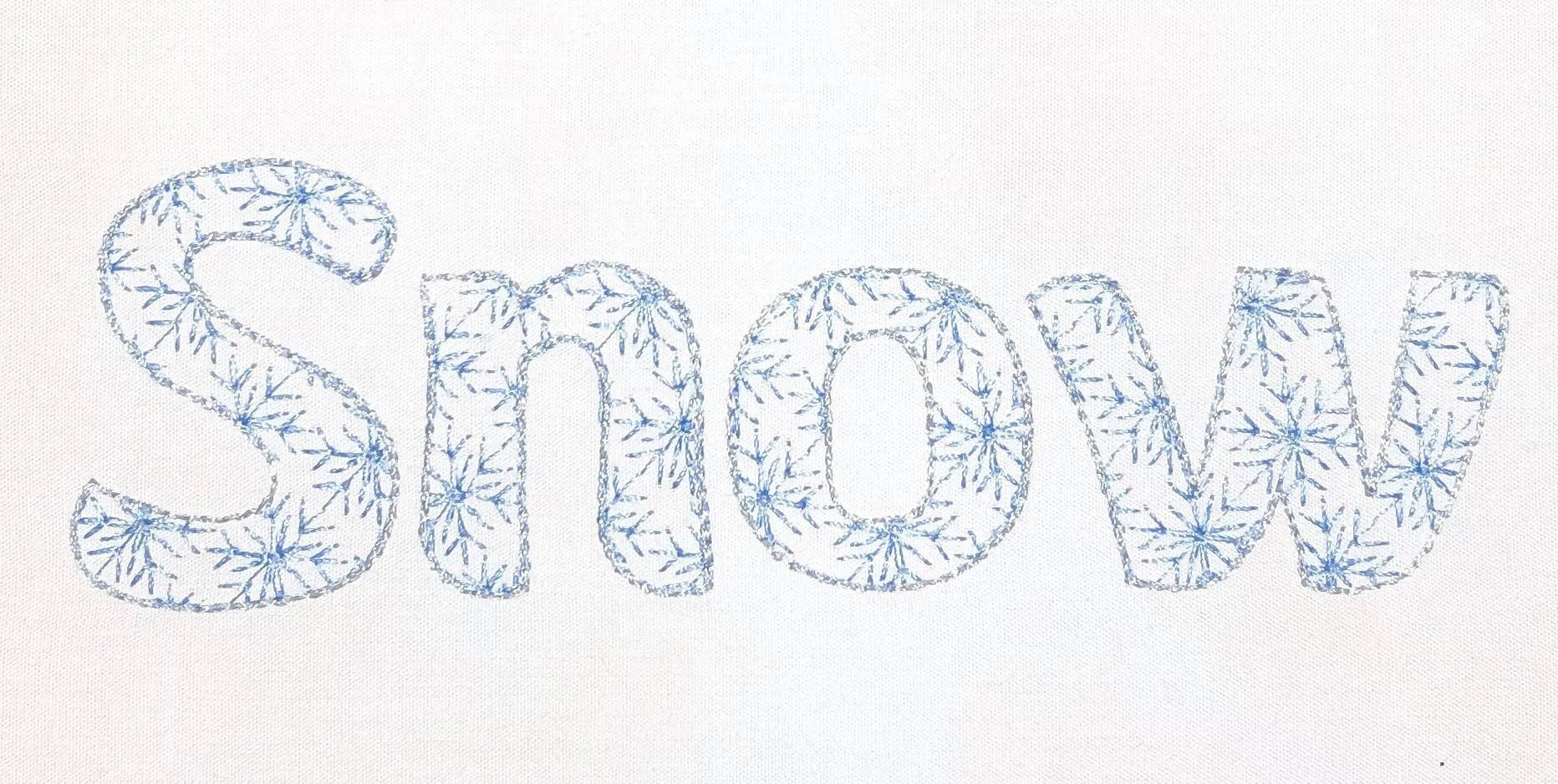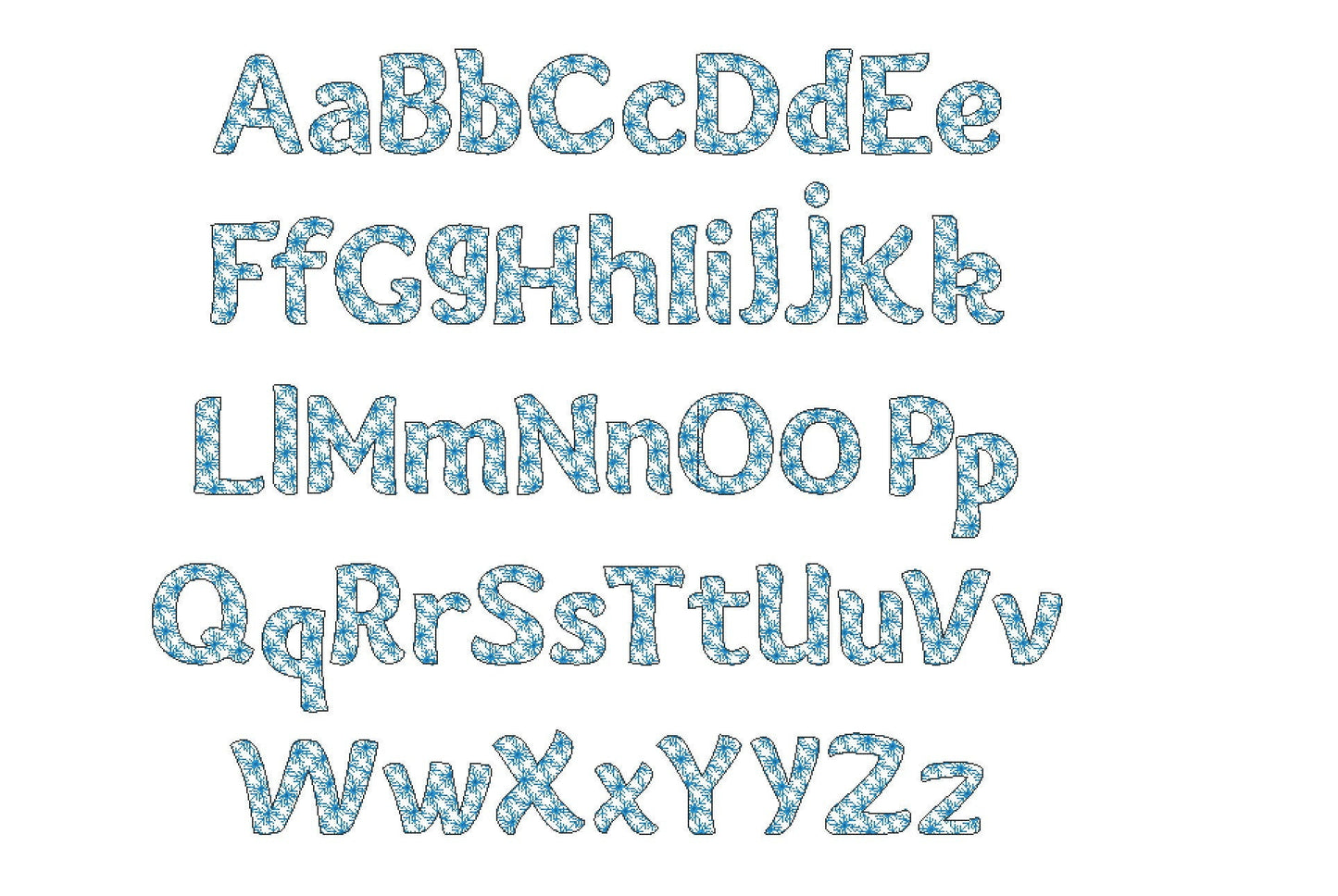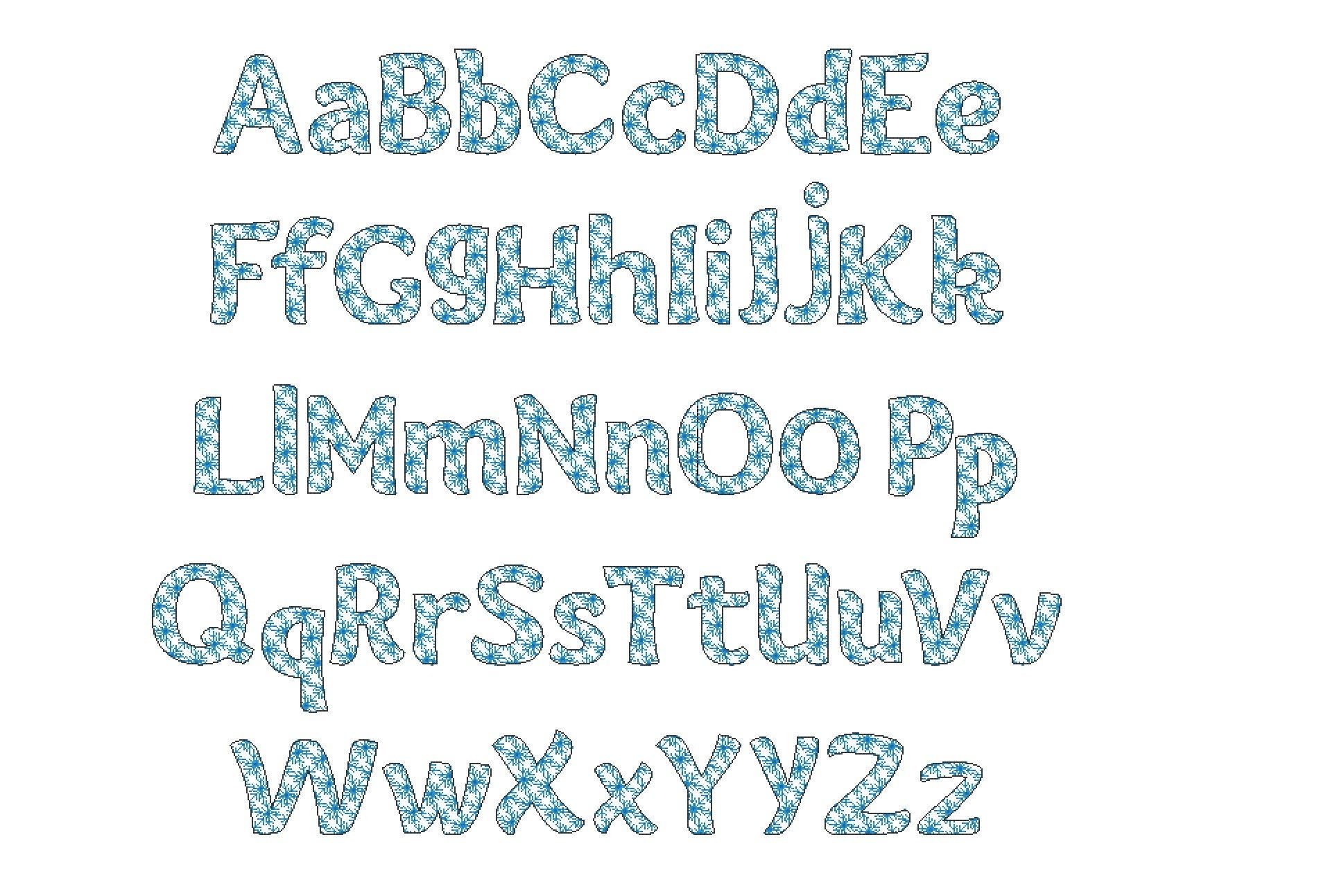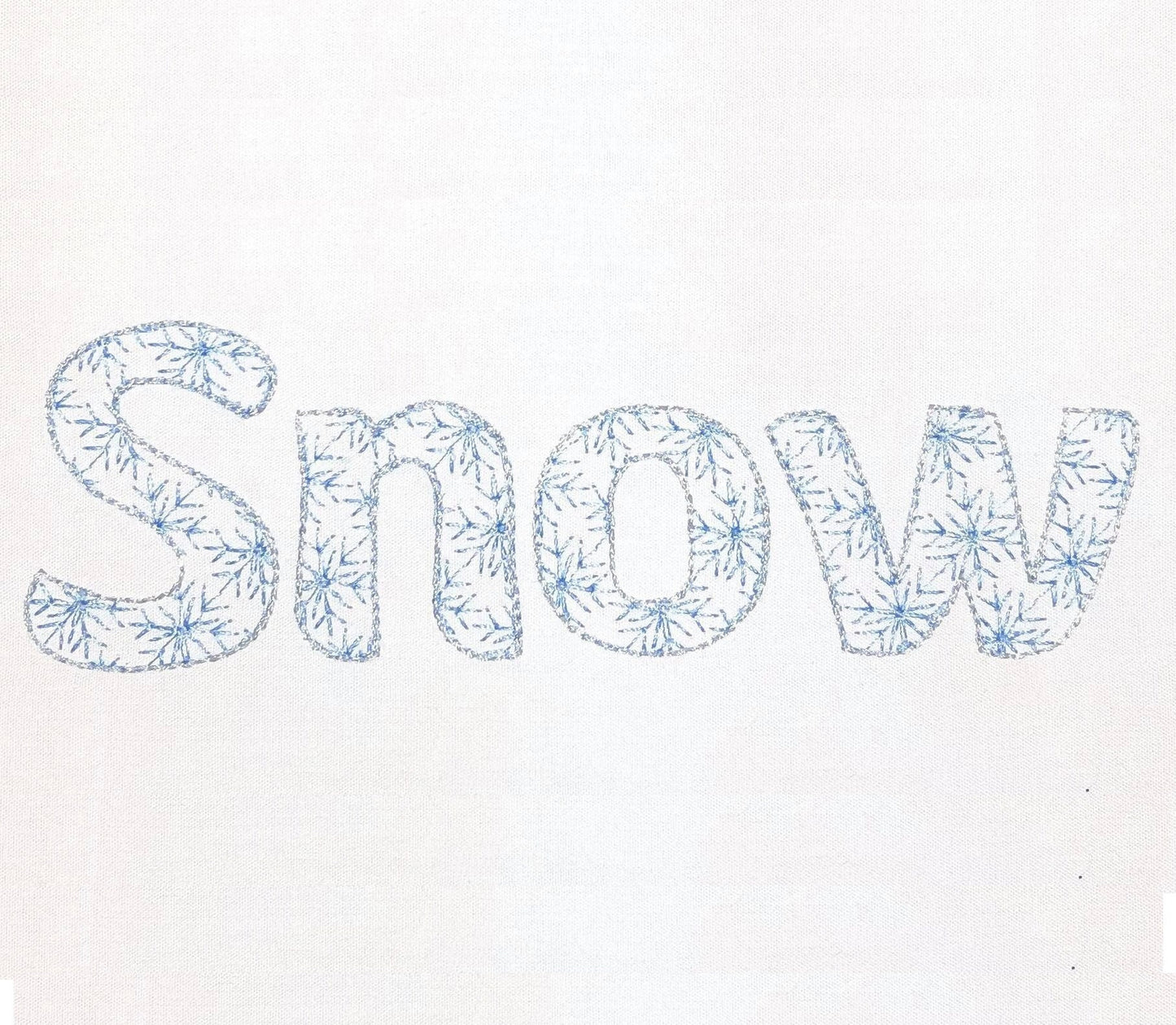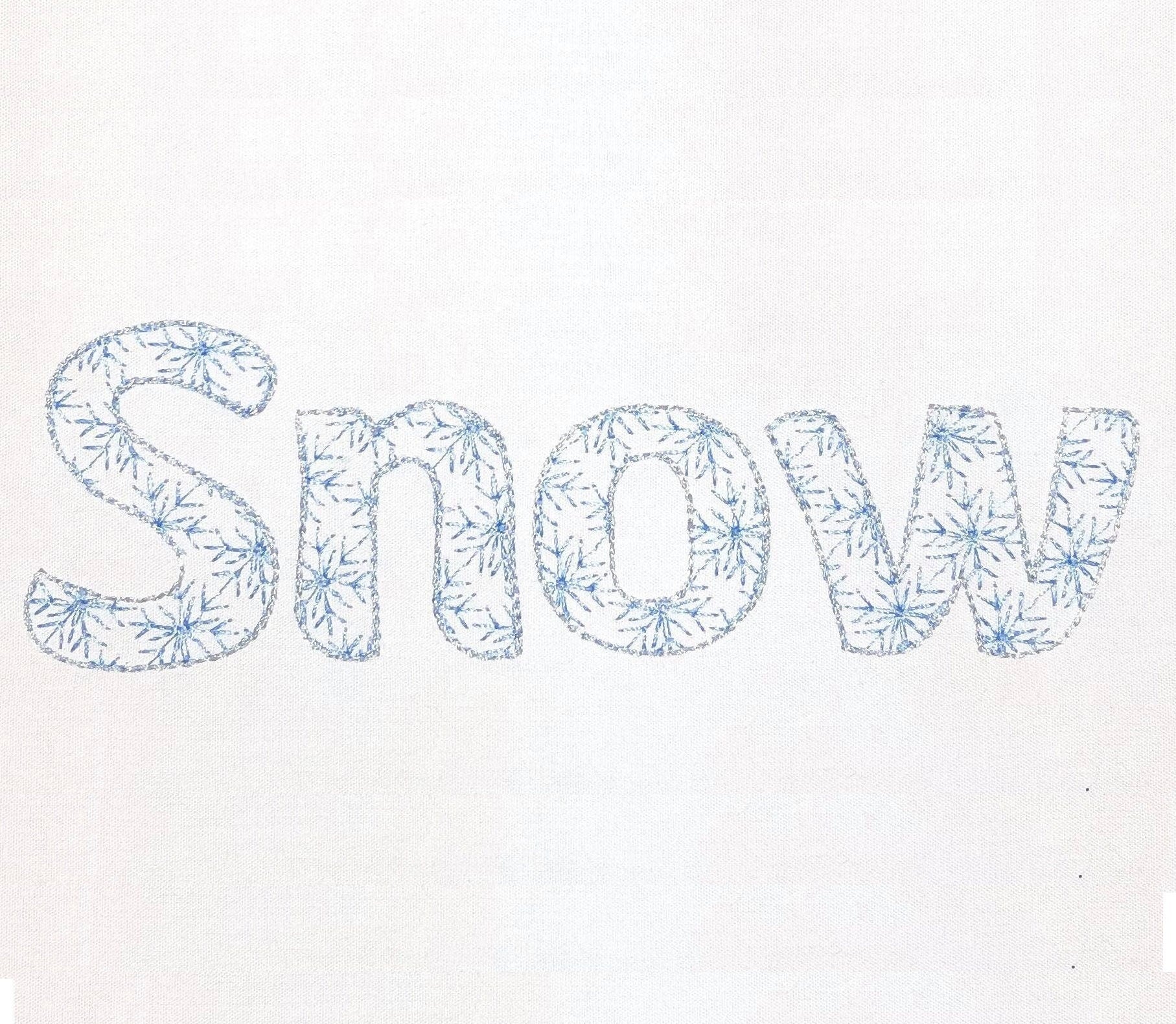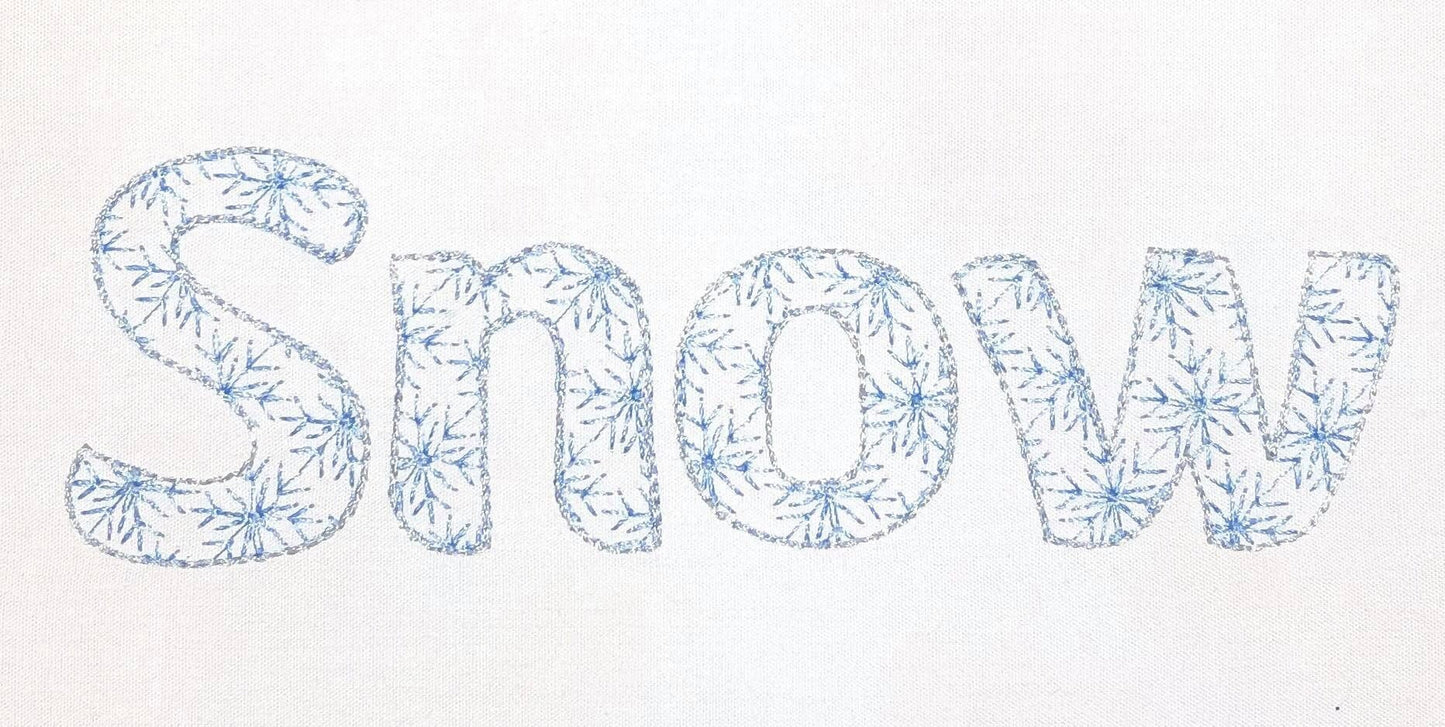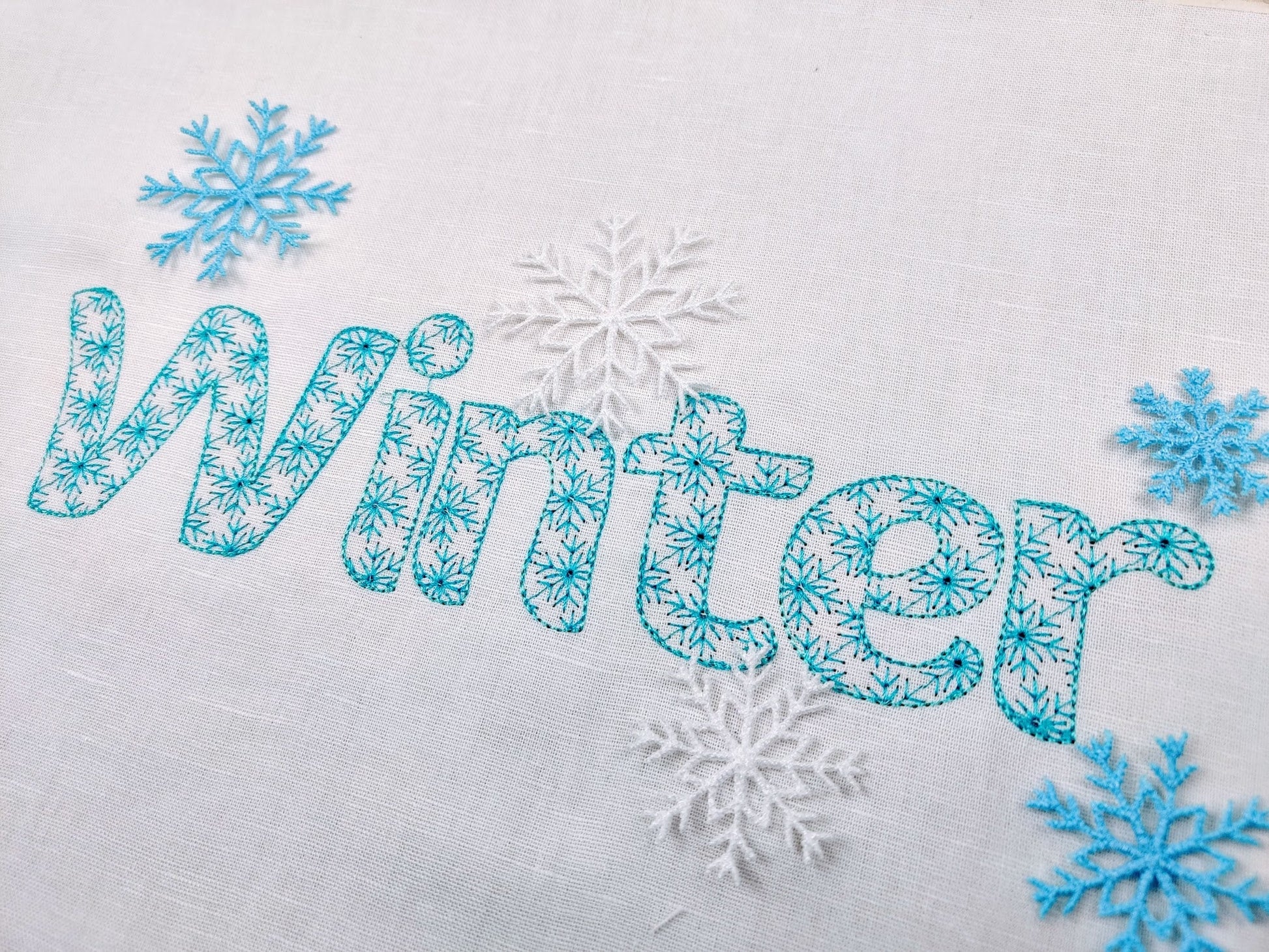
Or click to open the linkA snowflake patterned font in light sketch stitching that looks like lace. Quick and pretty for Christmas stockings, winter sweaters and ornaments.
Uppercase and lowercase letters and a few punctuation marks, in six sizes: 1.8, 2.1, 2.6, 3, 3.3 and 4.2 inches. Quick outline stitching lets the fabric show through.